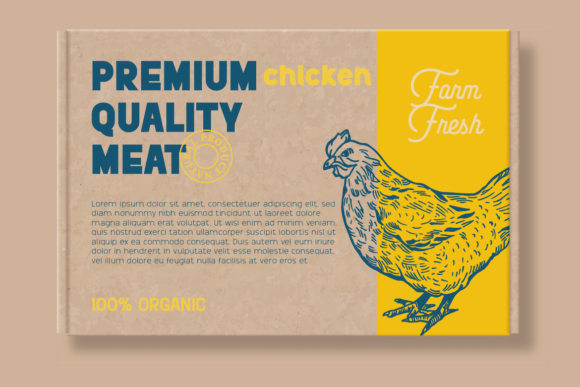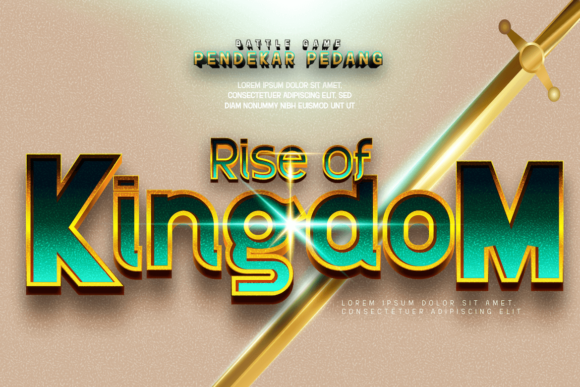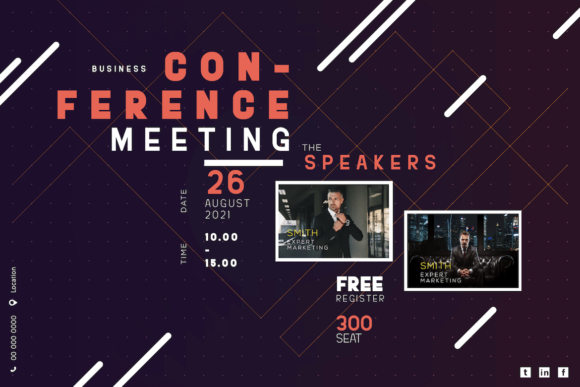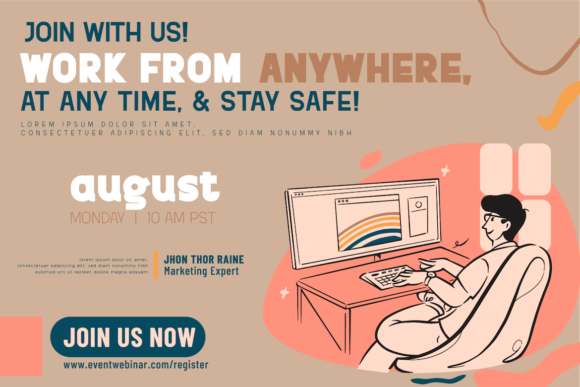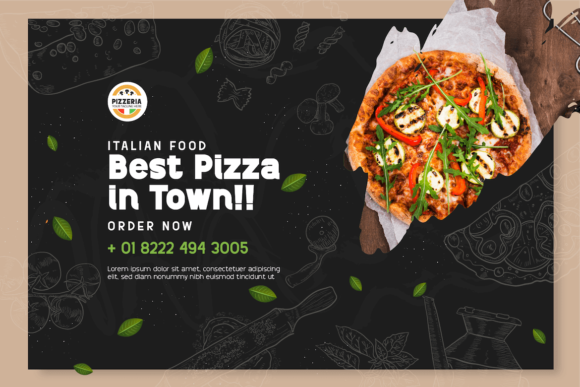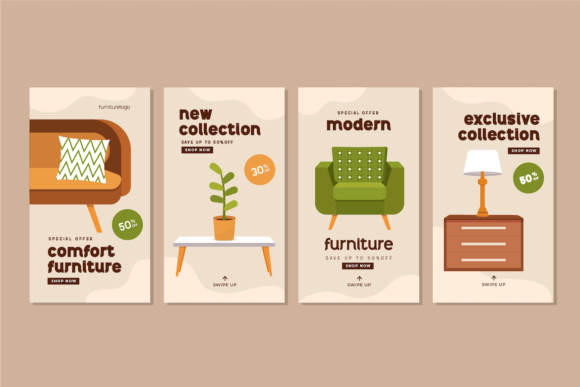
Meet the Perfect Partner for Your Next Design Project
You’re in the middle of brainstorming ideas for a new project, and suddenly, the perfect concept strikes you. The design is sleek, modern, and attention-grabbing. But, how do you bring this vision to life? That’s where the Brifa Font comes in – a cool, trendy, and bold display font that’s perfect for making a statement.
Designed to be versatile and adaptable, Brifa Font is ideal for web designs, business cards, or any project that requires a touch of minimalism. As a designer, you’ll appreciate its value in elevating your work to the next level. With Brifa Font, you can create a professional and eye-catching look that sets your brand apart from the rest.
Key Features of Brifa Font
- Font Family: Brifa is a sans-serif font family that includes multiple weights and styles, offering flexibility for various design needs.
- Character Count: Brifa contains a comprehensive set of characters, including uppercase and lowercase letters, numerals, punctuation marks, and special characters.
- Unique Characteristics: Brifa features a clean and modern design aesthetic, with a focus on legibility and readability. Its unique characteristics include a subtle rounded edge and a carefully crafted x-height.
Brifa Font Review
When I first laid eyes on Brifa, I was immediately drawn in by its modern aesthetic ✨. The clean lines and minimalist feel make it perfect for digital applications, and the font’s versatility shines through in its numerous weights and styles.
One of the standout features of Brifa is its excellent legibility ✨. Whether you’re using it for body text or headings, the font is clear and easy to read, even at smaller sizes. Additionally, the font’s x-height is well-balanced, making it suitable for a wide range of languages.
However, I do have a few concerns ⚠️. Firstly, the font’s kerning could be improved, particularly in certain character combinations. This can result in an uneven appearance that may be jarring to the eye. Additionally, some users may find the font’s default spacing to be a bit too tight, which can make it difficult to read at longer lengths.
Overall, I think Brifa is a solid choice for designers looking for a modern, versatile font ✨. While it may not be perfect, its strengths far outweigh its limitations, making it a great addition to any designer’s toolkit.
In terms of specific use cases, I would recommend Brifa for:
- App and website design
- Editorial and publishing projects
- Corporate identity and branding
Just be sure to adjust the kerning and spacing to your liking to get the most out of this versatile font.
Some tips for getting the most out of Brifa Font include:
– Using it for headings and titles to add a touch of elegance.
– Pairing it with other fonts for a unique and interesting look.
– Using it in conjunction with bold or italic styles to add emphasis.